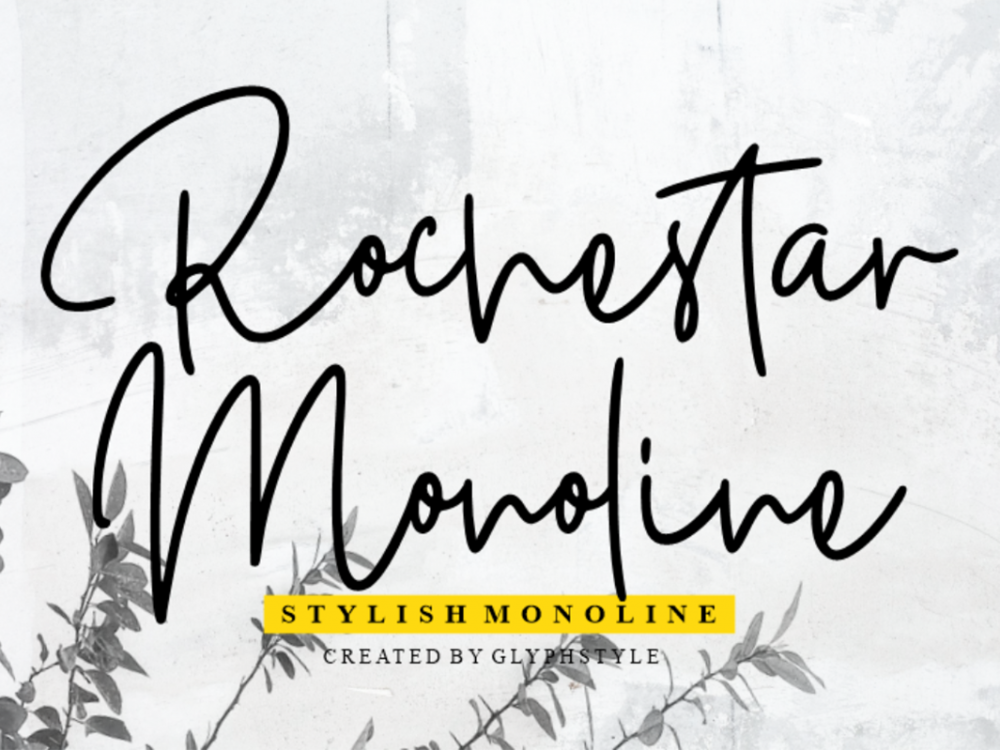
Rochestar Free Font
Rochestar Free Font is beautiful and elegant monoline font that features a calligraphic style. This font is very suitable for creating various projects that require a script font. Use this font to create memorable romantic posters, wedding invitations, greeting cards, branding, flyers, t-shirt and pillow prints, and more. If you like it don’t forget to check out the full version.